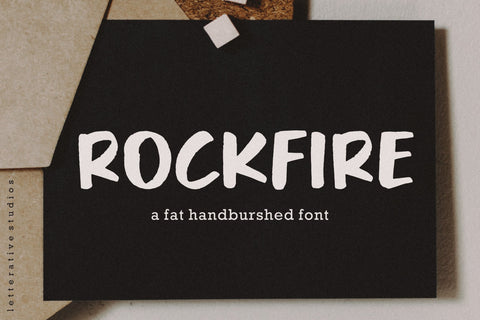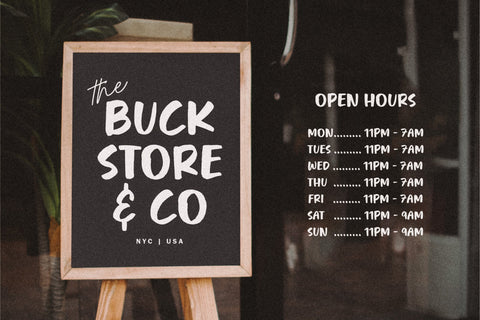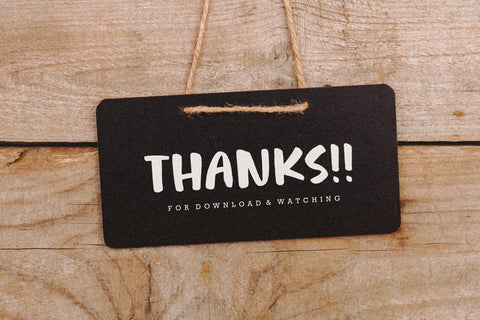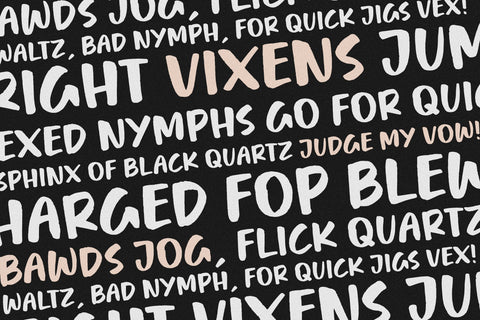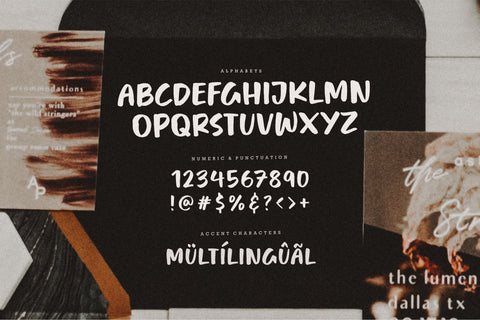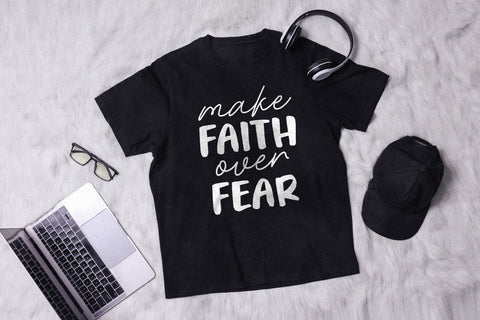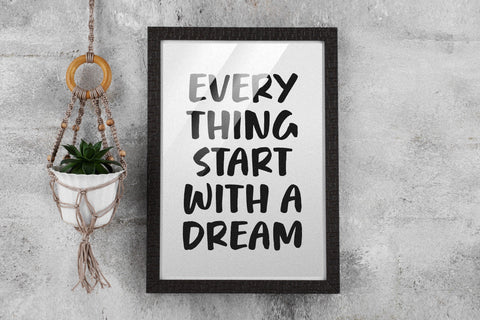
Rockfire Fat Handbrushed Font
Introducing by Letterative Studio : Rockfire Font
Rockfire is a Fat Handbrushed Font
Rockfire is a sweet brushed handwritten font. Whether you’re looking for fonts for Instagram or calligraphy scripts for DIY projects, this font will turn any creative idea into a true piece of art!
Rockfire also multilingual support
This font only has uppercase letters